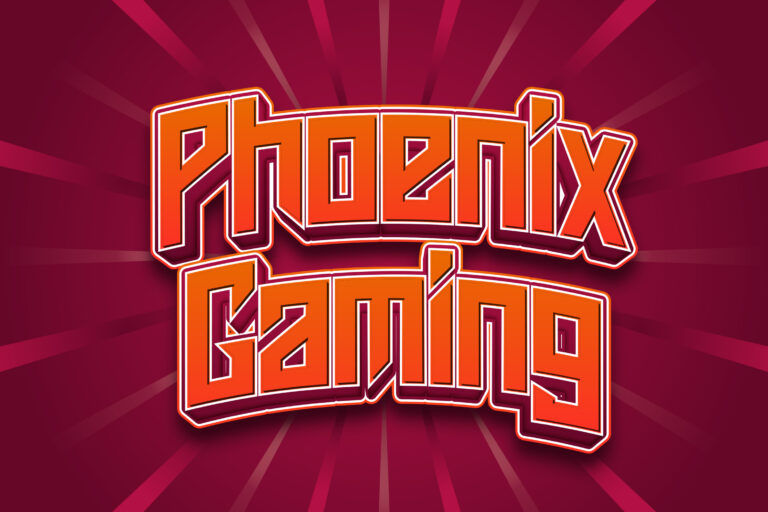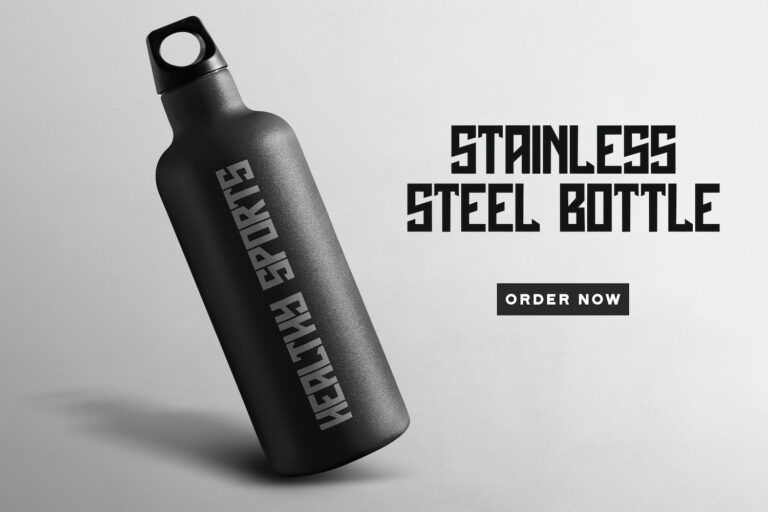
Phoenix Gaming is a bold, angular display font designed to make an impact—and it performs best when used at the right size so it can breathe. At medium to large scales, its sharp cuts and heavy geometry remain clear and powerful; at small sizes, stencil-like gaps and narrow angles can begin to merge or lose definition, especially on low-resolution screens or textured backgrounds.
- Readability:
Thick strokes and straight edges make words easy to spot quickly, which is ideal for gaming, sports, and high-energy messaging. This font is most readable in short phrases and all-caps layouts, where the consistent height and bold forms feel cohesive and aggressive. For longer text, the stylized cuts can slow reading—so it is better used as a headline font rather than for paragraphs. - Letter spacing & density:
Phoenix Gaming has a dense, compact layout, causing text to feel tight when stacked or placed in confined spaces. A slight increase in letter spacing (tracking) helps prevent shapes from colliding, and a slightly taller line height keeps lines from visually crashing into each other—especially with diagonal/angular details that create a busy rhythm. - Technical strengths and limitations:
Strengths: Its geometric construction works extremely well for logos, headlines, posters, merchandise, and bold branding. It also looks strong with high-contrast treatments (solid fills, simple outlines, clean shadows).
Limitations: Inner cuts and sharp joins can become fragile at small sizes or when reproduced with heavy effects (blur, thick texture overlays, overly thick outlines). If you plan print finishing (embossing/foil) or production (vinyl/laser cutting), test first—small negative spaces may fill in depending on the material and settings.
For best results, use Phoenix Gaming at headline sizes: around 32–48 px+ for digital (larger for busy photos), and around 24–36 pt+ for print depending on viewing distance. This font is highly suitable for posters, esports branding, thumbnails, streaming overlays, apparel graphics, and product promotions, especially with clean backgrounds and strong contrast.